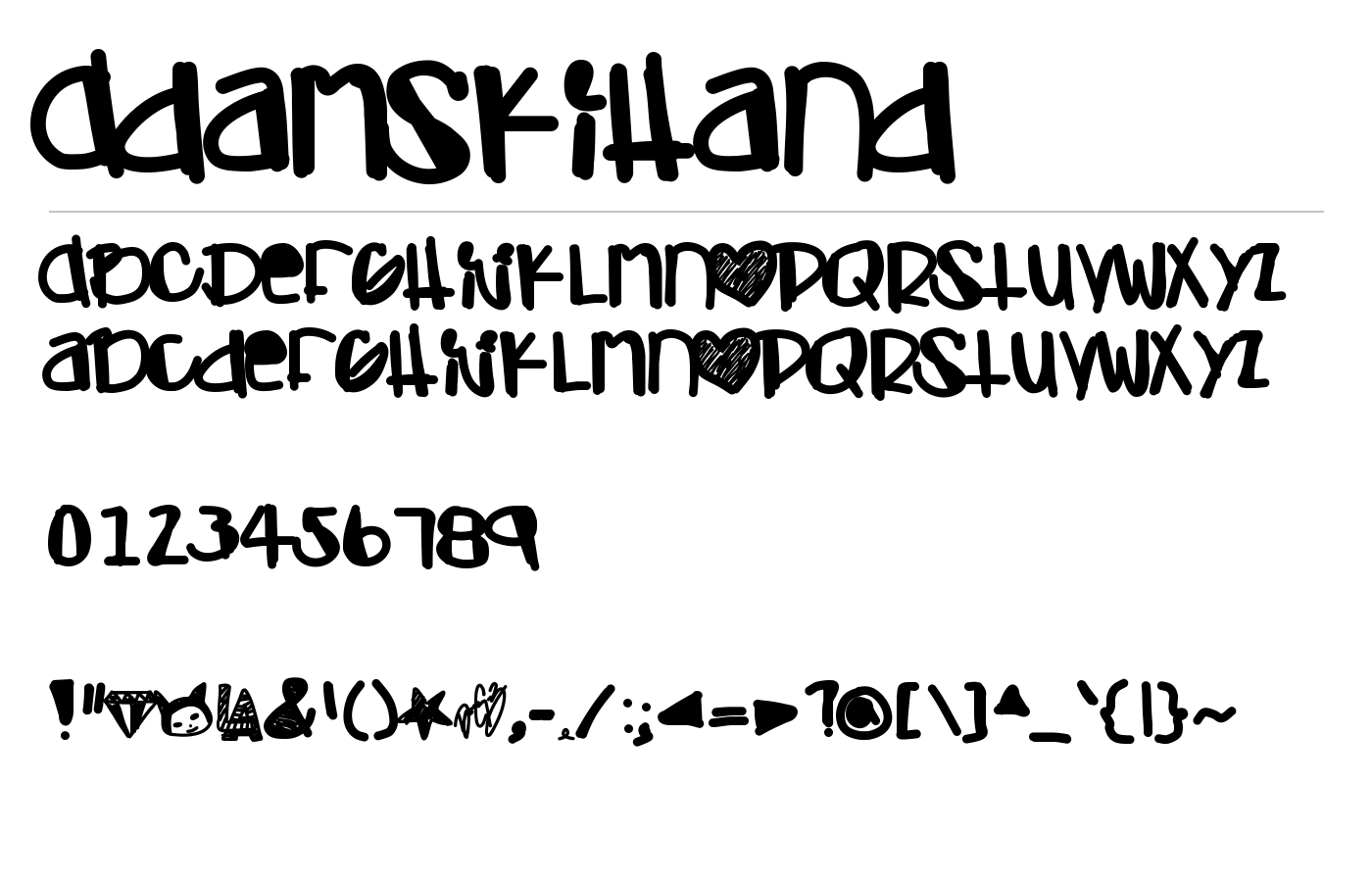
AdamskiHand is a playful, casual handwritten font with a bold and irregular stroke style that captures a fun, youthful energy. Its rounded, quirky letterforms and whimsical details like heart shapes and unique symbols make it perfect for creative projects, children’s designs, informal branding, and expressive headlines. This font works best where a lively, personal touch is needed to engage and delight the audience.
AdamskiHand Font
About AdamskiHand Font